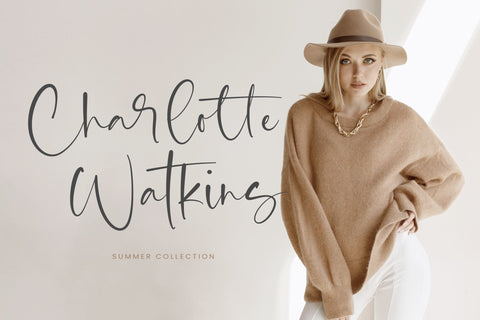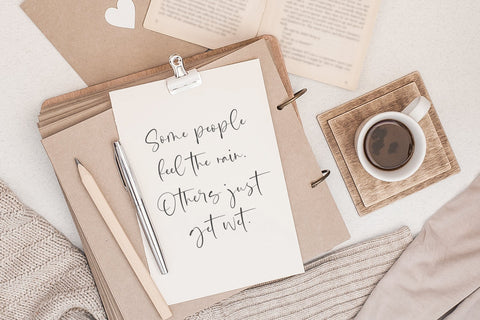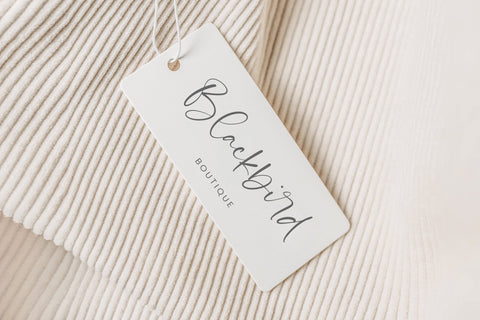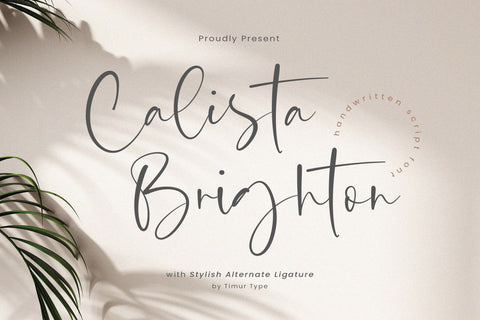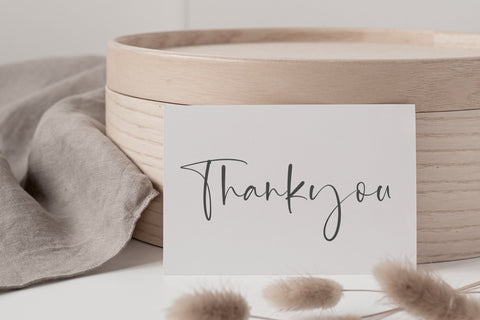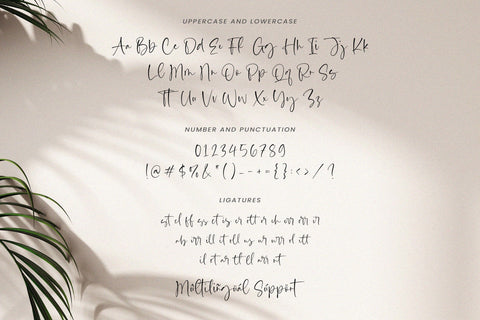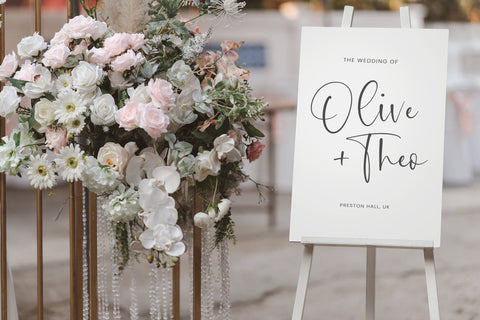
Calista Brighton - Handwritten Script Font
Calista Brighton is a Handwritten Script Font
This font depicts a journey of typography where the art of handwriting transcends the ordinary, revealing the captivating dance of ink on paper. This beautiful font, decorated with stylish alternate ligatures, weaves a narrative of elegance and sophistication. Every stroke is a stroke of creativity, proof of the perfect blend of tradition and modernity. As your eyes trace its curves and turns, you are transported to a world where each character is a work of art, an embodiment of meticulous craftsmanship. The interplay of alternating styles provides a rhythmic rhythm, inviting the eye to linger on the page, enjoying the visual symphony of each letter. It's not just a font; it is a visual poem that whispers tales of timeless charm and unparalleled elegance, leaving an indelible mark on the design canvas."
Calista Brighton Font also supports multilingualism.